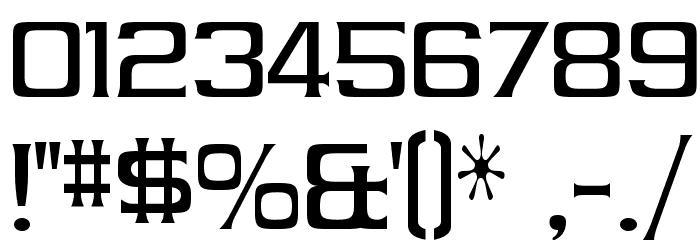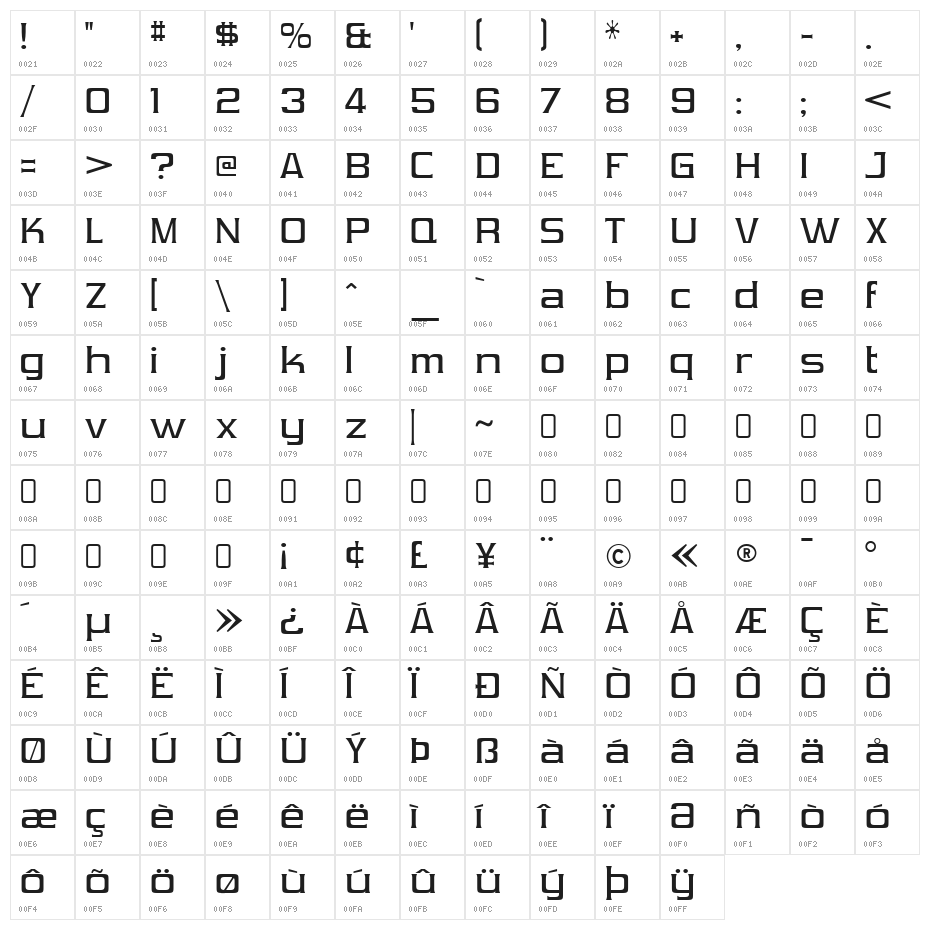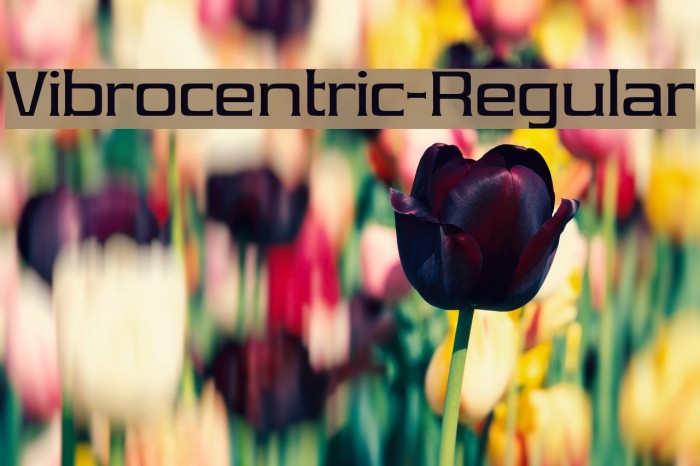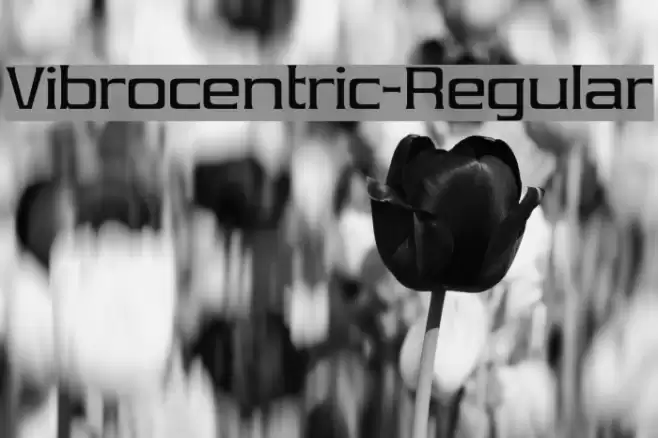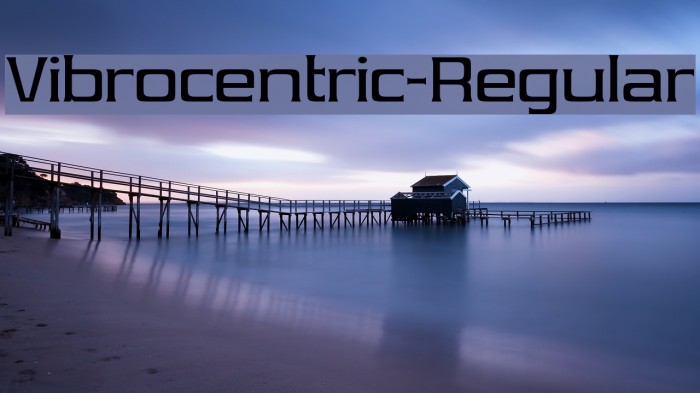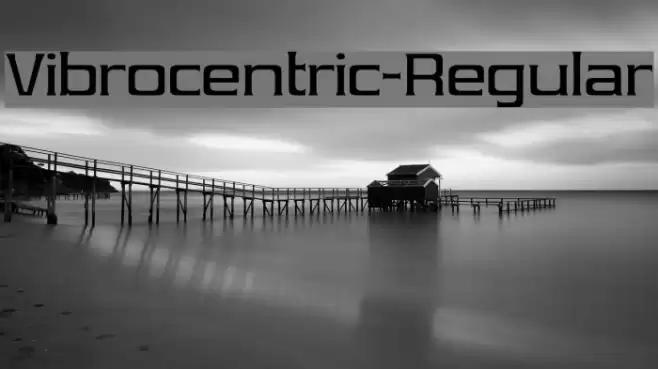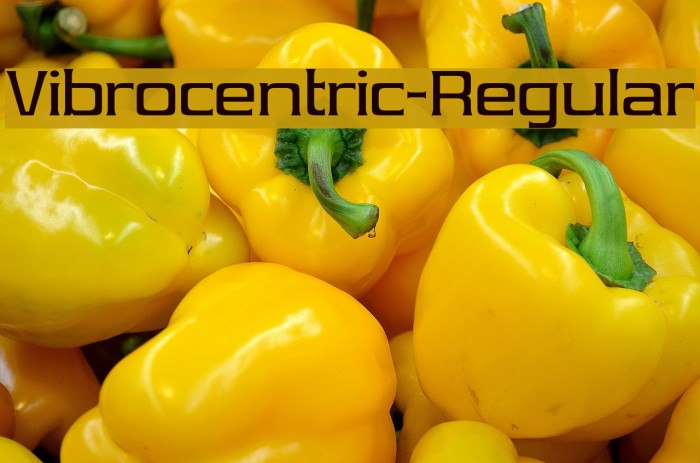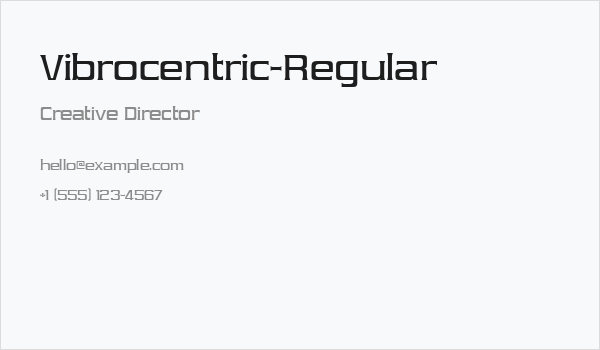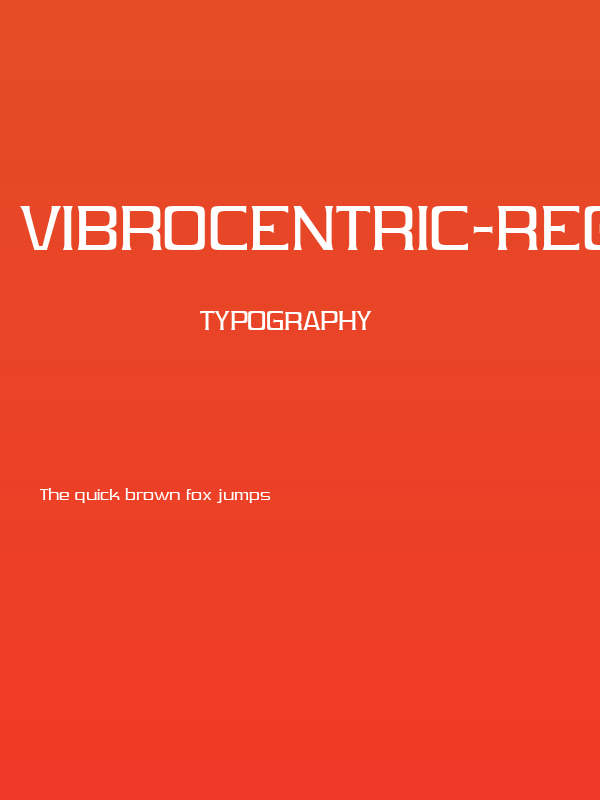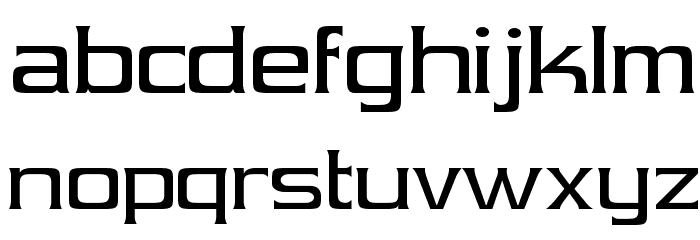
Vibrocentric-Regular Font
Vibrocentric-Regular Description
This font features a modern and geometric design with a distinct, angular appearance. The characters are structured with sharp edges and clean lines, giving it a futuristic and technical feel. The uppercase letters are bold and commanding, while the lowercase letters maintain a consistent style with slightly softer curves. Numbers and special characters follow the same design principles, ensuring uniformity across all glyphs. The font's overall aesthetic is sleek and contemporary, making it suitable for projects that require a cutting-edge look.
| Use Case | Headlines, Logos, Digital Interfaces |
| Proposed Projects | Ideal for technology branding, modern advertising, and digital interfaces. |